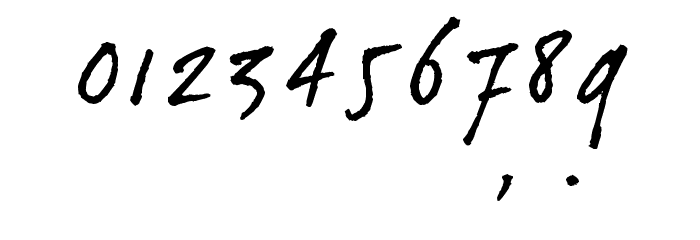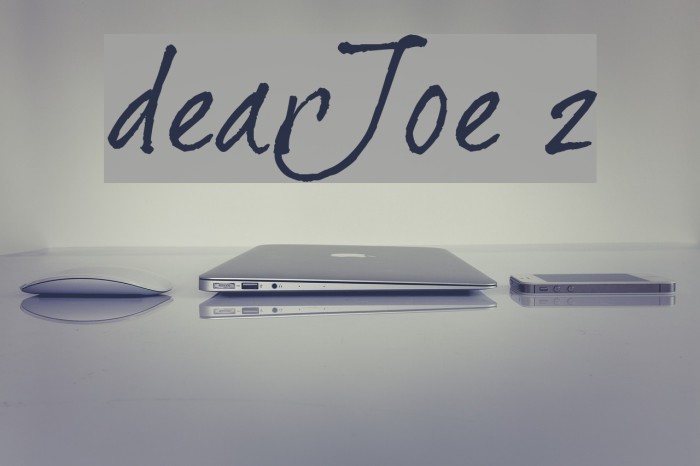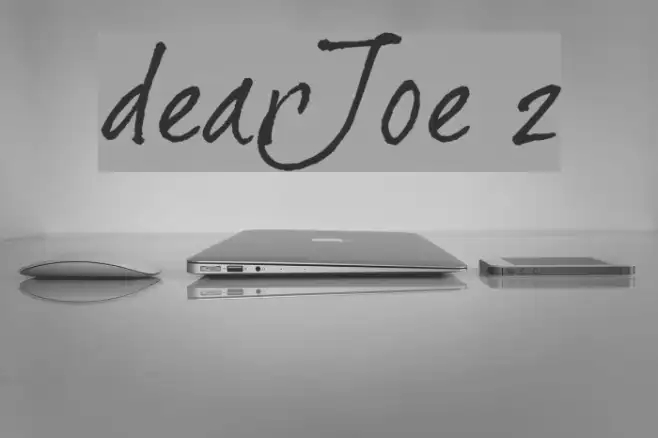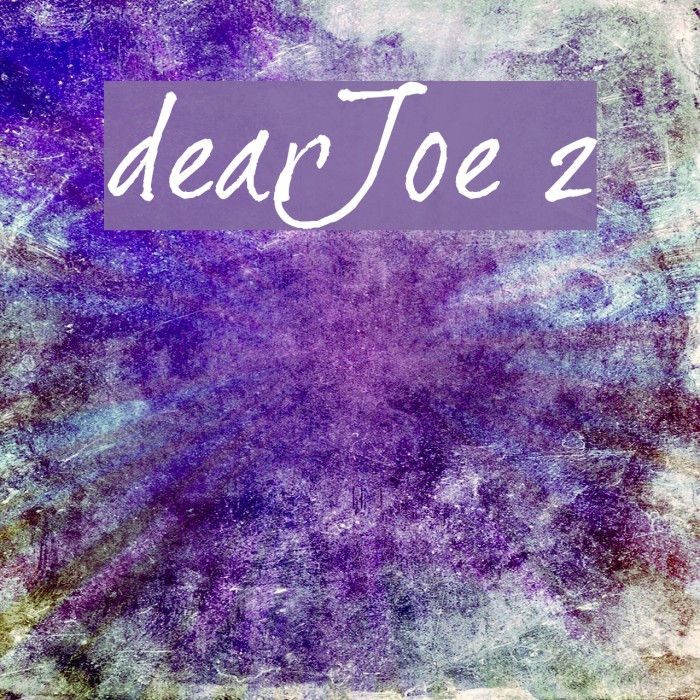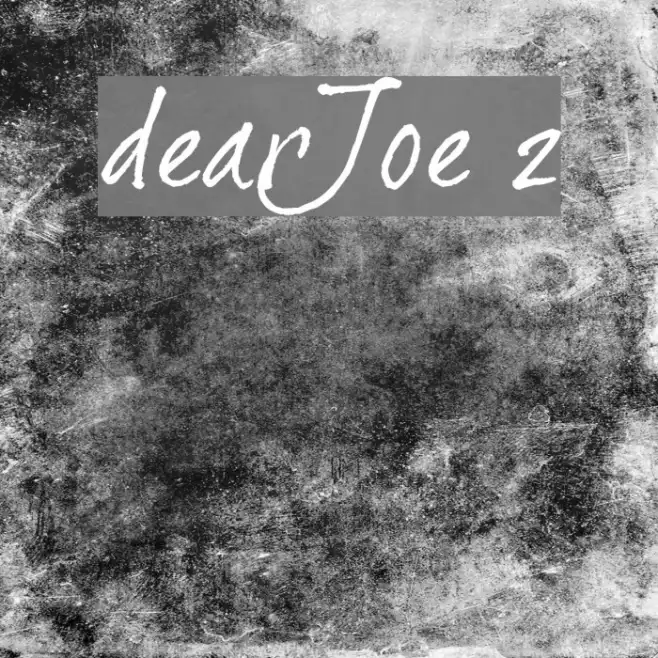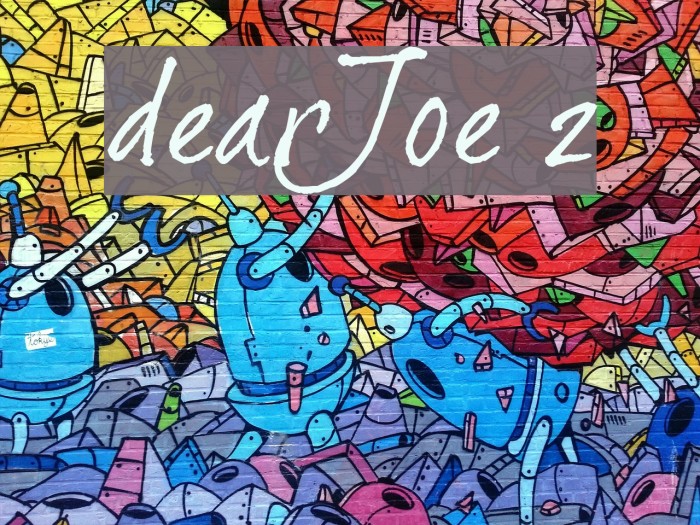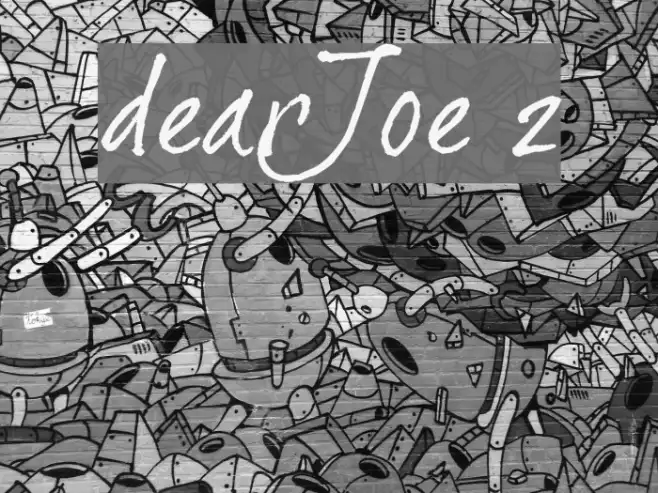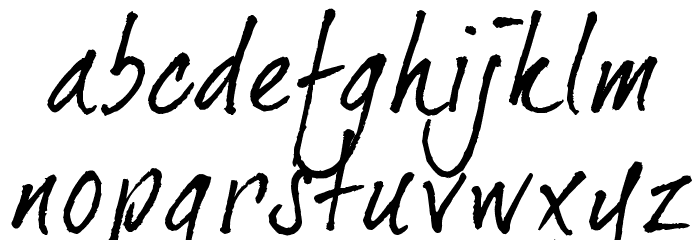
dearJoe 2 Font
This font exudes a handwritten, casual style with a touch of elegance. The letters are slightly slanted, giving a sense of movement and fluidity. The strokes are varied in thickness, adding a dynamic and lively feel. The uppercase letters are bold and prominent, while the lowercase letters maintain a consistent flow. Numbers and special characters are crafted with the same attention to detail, ensuring a cohesive look throughout. This font is perfect for projects that require a personal touch, such as invitations, greeting cards, or artistic designs.
A dynamic, handwritten font with varied stroke thickness and a casual elegance.
• Proposed Projects: Ideal for invitations, greeting cards, artistic designs, and personal branding.
• Overall Style: Casual, Elegant
• Use Case: Headlines, Artistic designs, Personal projects